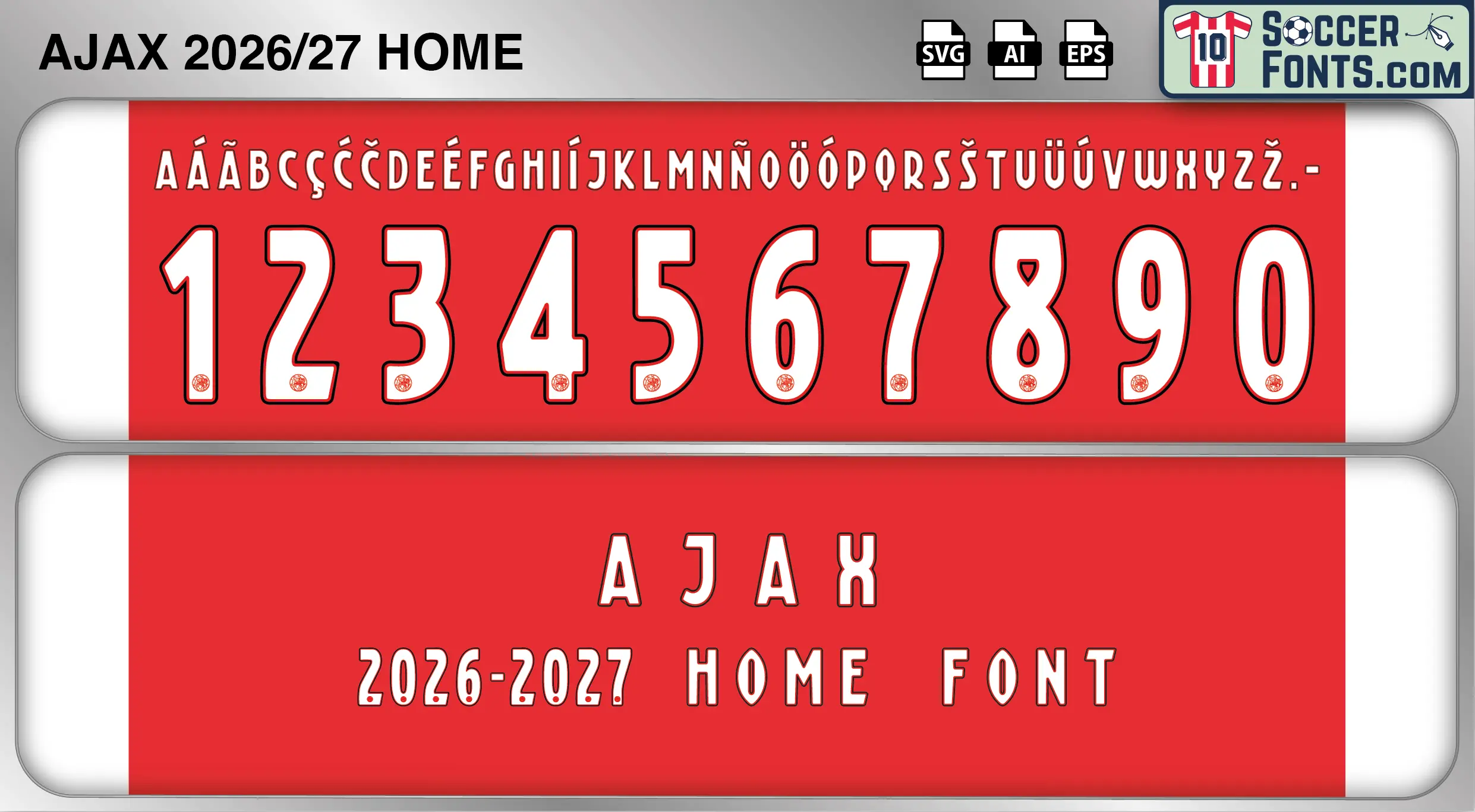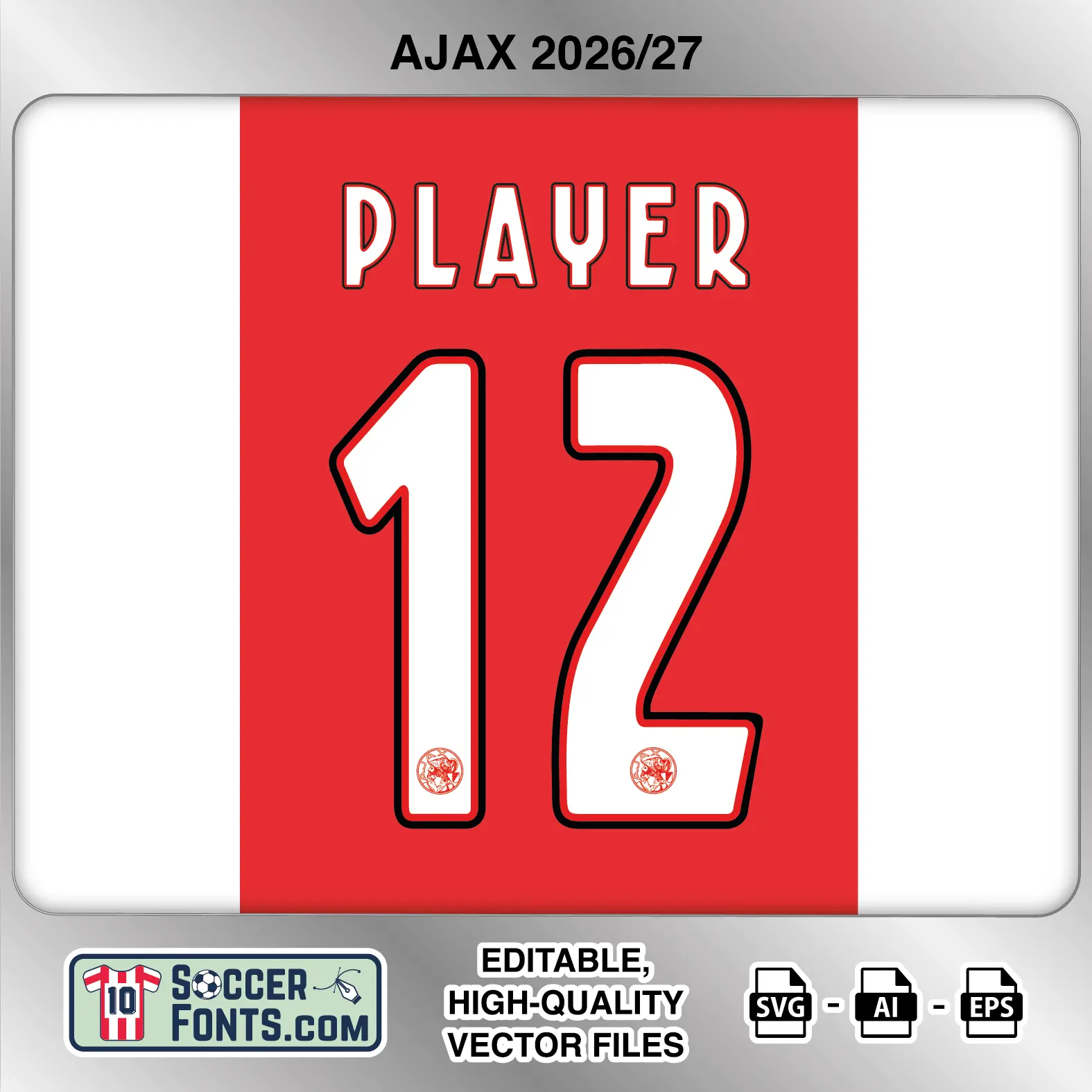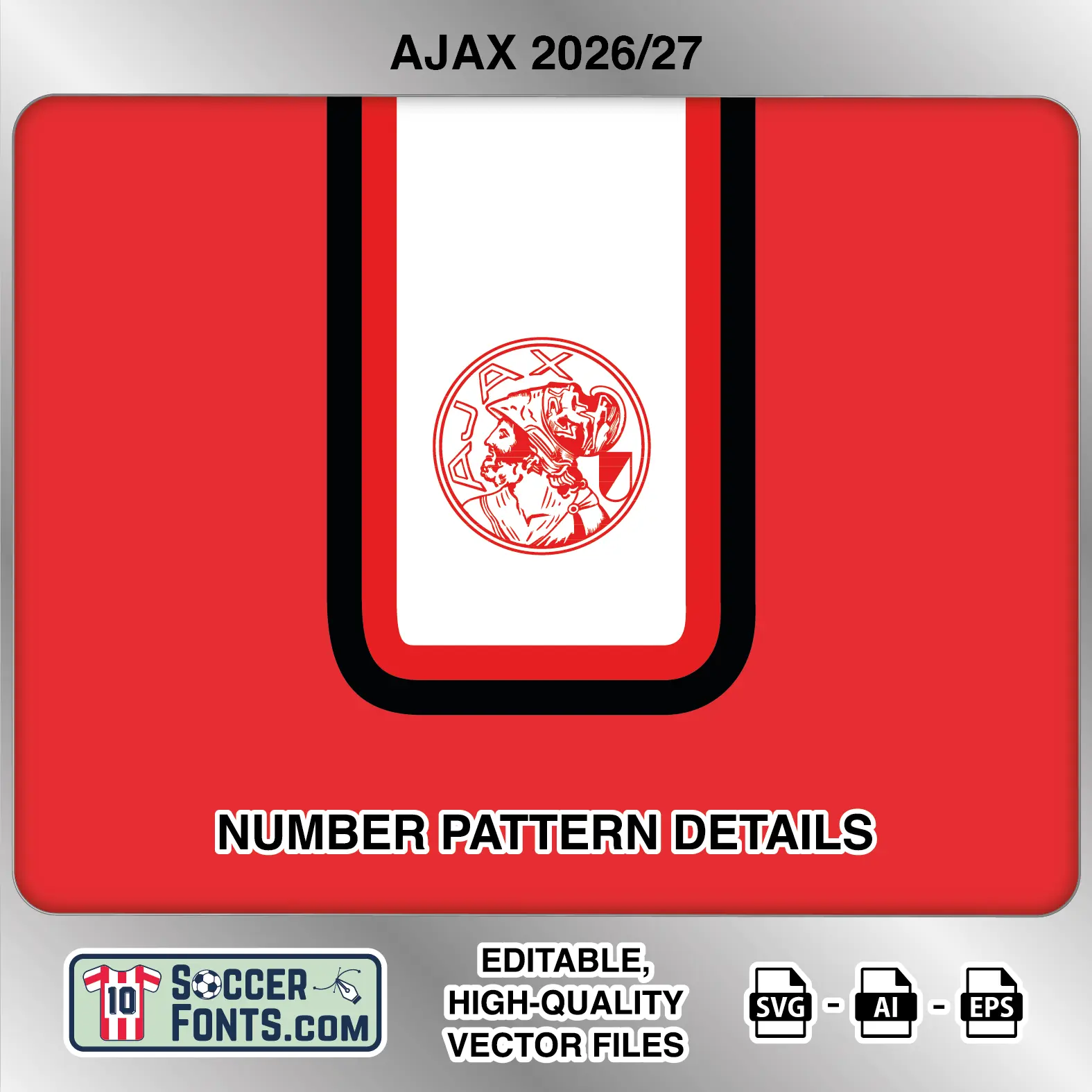
Visual Identity of the Font Design :
The Ajax 2026-27 home lettering uses a tall, narrow uppercase alphabet paired with substantially larger shirt numbers. The letters have condensed proportions, mostly straight vertical strokes and subtly rounded corners, creating a clean silhouette that remains highly legible across player names. The numbers share the narrow construction but introduce more distinctive shapes, particularly through the curved upper sections of 2, 3, 6 and 9 and the compact internal spaces of 4 and 8. A white fill is surrounded by a thin red inner edge and a stronger dark outer outline, producing clear separation from the central red section of the home shirt. The number 1 features an angled upper flag, while 7 uses a broad horizontal top before narrowing into its descending stroke. A small Ajax crest is positioned near the bottom of each numeral. The complete character set also includes a selection of accented uppercase letters for international player names.
Context of 2026-27 Season for Ajax :
Ajax began the 2026-27 campaign under new head coach Míchel Sánchez, with the Amsterdam club combining another Eredivisie season with a UEFA Conference League campaign. The Ajax 2026-27 Font Home belongs to a period of squad renewal that included experienced names alongside younger players developed around the club.
The squad featured Davy Klaassen, Steven Berghuis, Oscar Gloukh, Mika Godts and Jorthy Mokio, while summer additions included Caio Henrique and Marcos Leonardo. Daley Blind also returned for a third spell with Ajax, adding another connection between the current team and earlier generations at the Johan Cruijff ArenA.
European qualifying became an early part of the season, with Ajax progressing through Conference League ties before facing FC Sion in the play-off round. The Ajax 2026-27 Font Home therefore represents a kit era used across domestic and European competition. With PSV visiting Amsterdam in September and De Klassieker against Feyenoord scheduled later in the campaign, the Ajax 2026-27 Font Home accompanies another season built around the club’s traditional rivalries and pursuit of trophies.